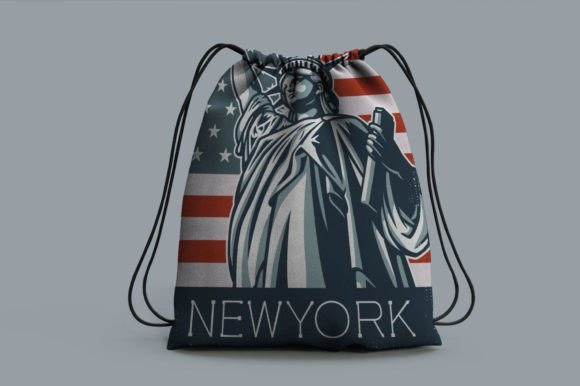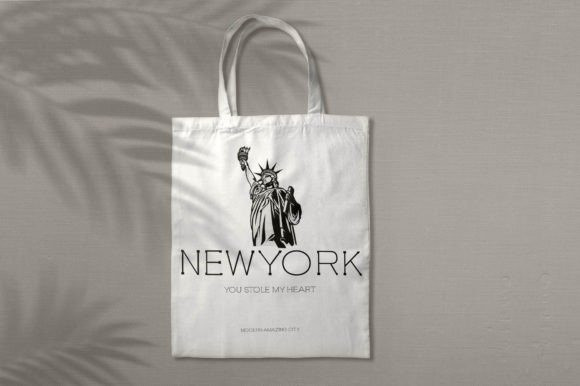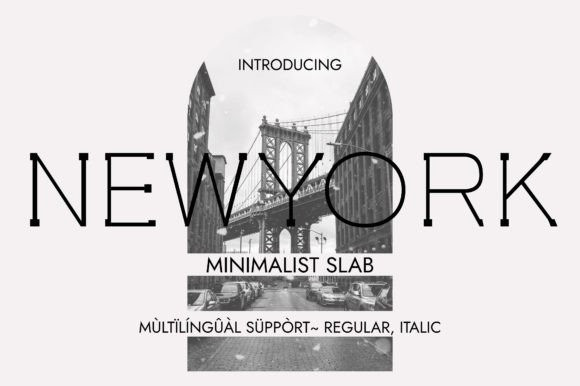
NEWYORK SLAB FONT
Newyork Slab Font is an elegant, minimalist, and luxuriously thin slab serif typeface. Its amazing glyphs construction renders it a valid choice when it comes to designing elegant themes that requires some particular touches. It is suitable to be used in headings and body texts. It can awesomely be used in packaging design, perfume design, cosmetics design, web design, magazine covers, etc. Add this font to your favorite creative ideas, and notice how it makes them stand out!